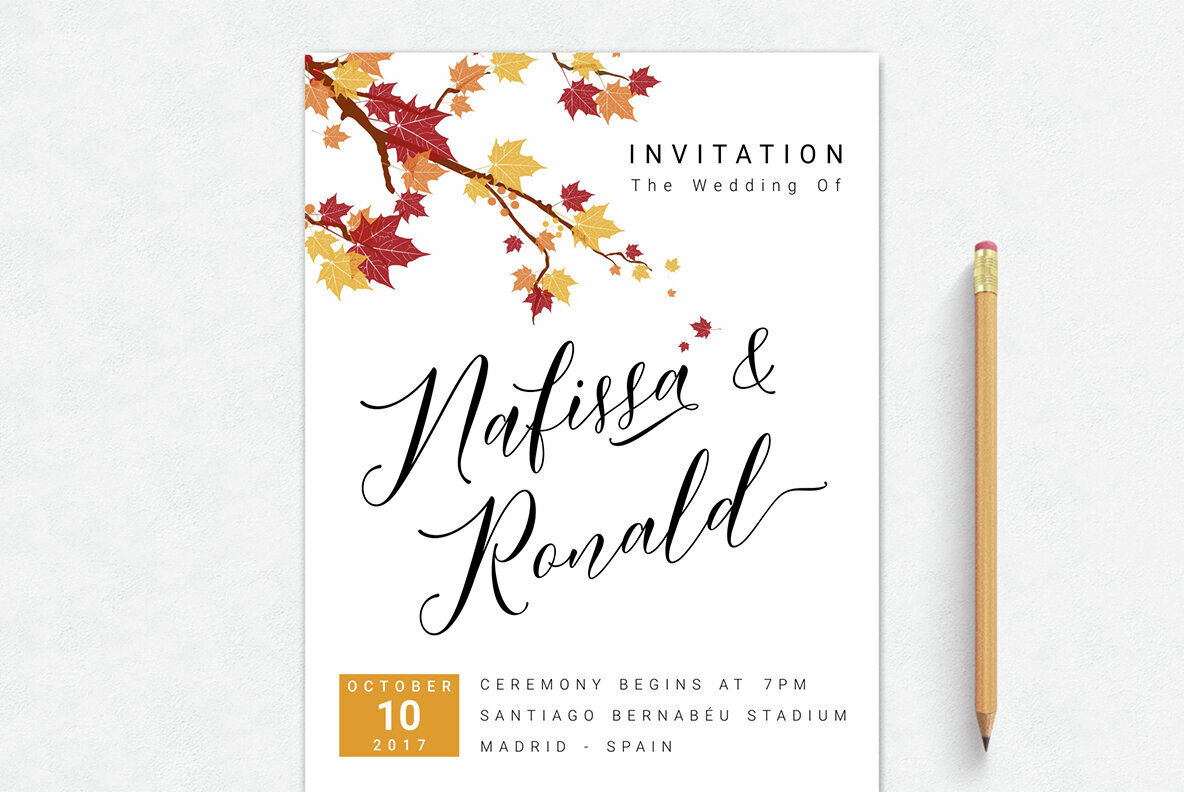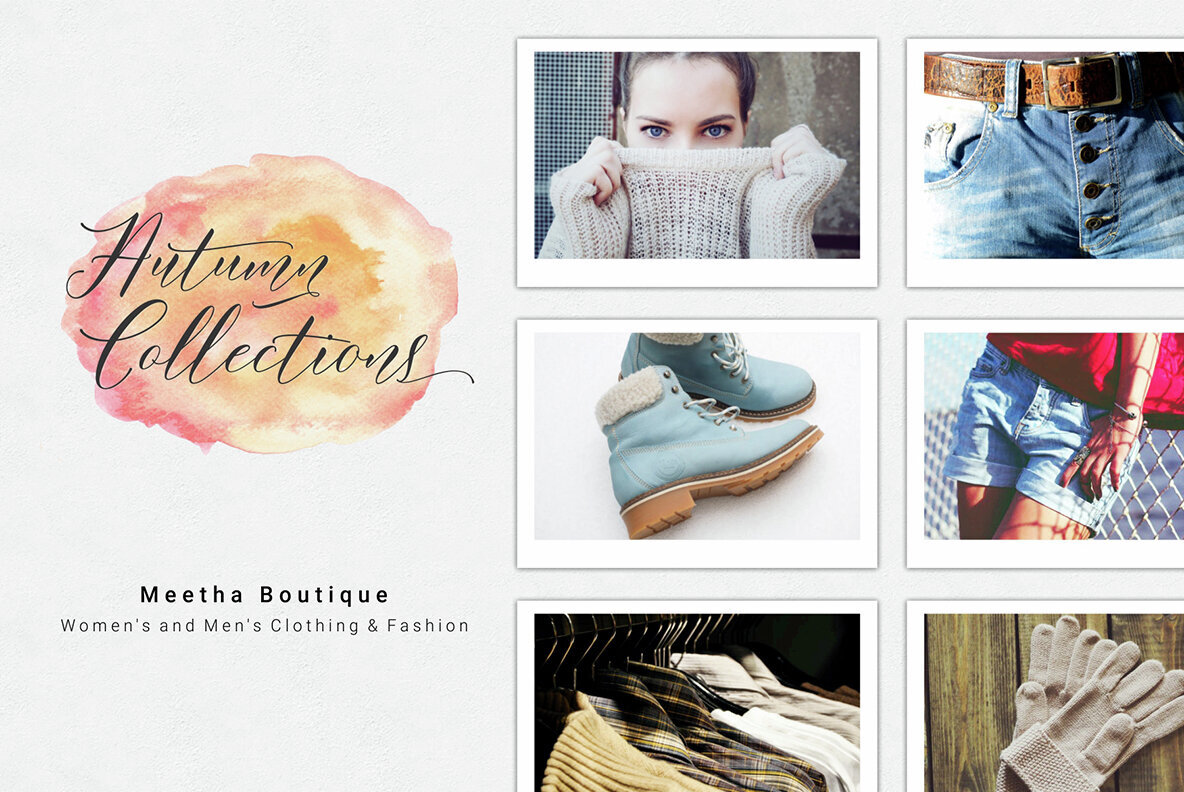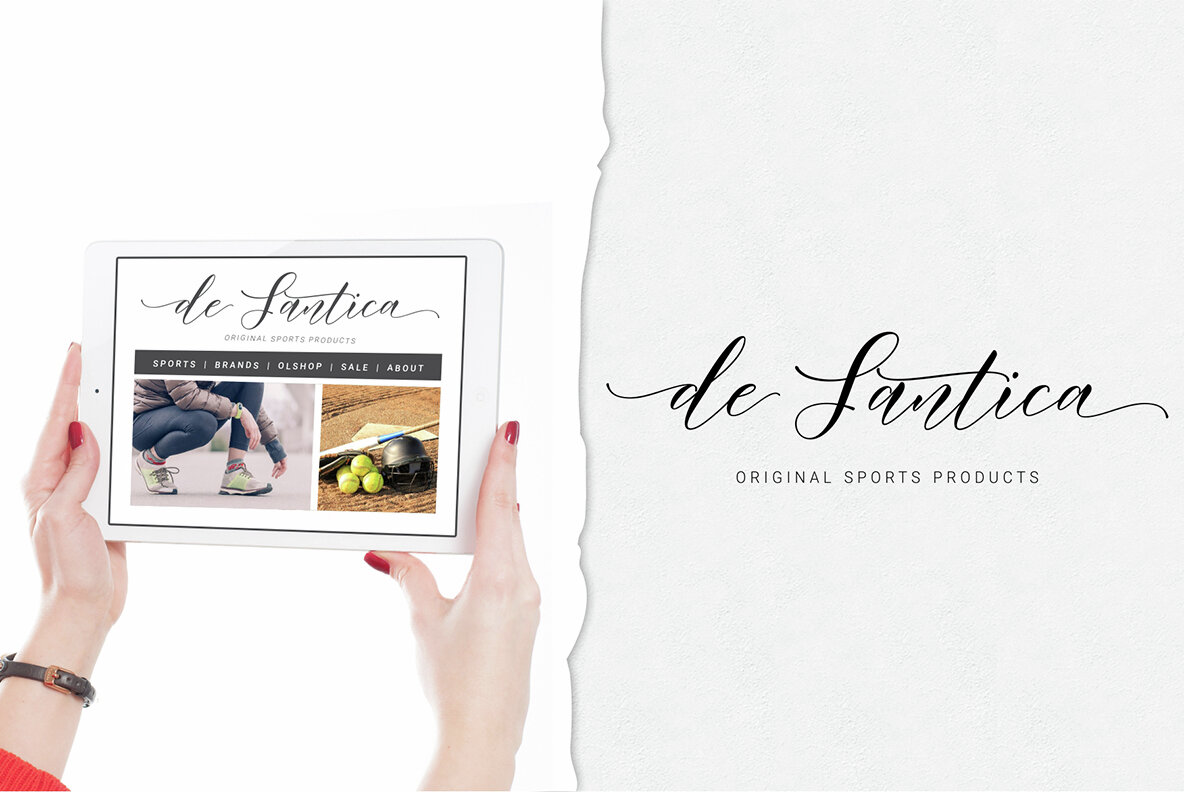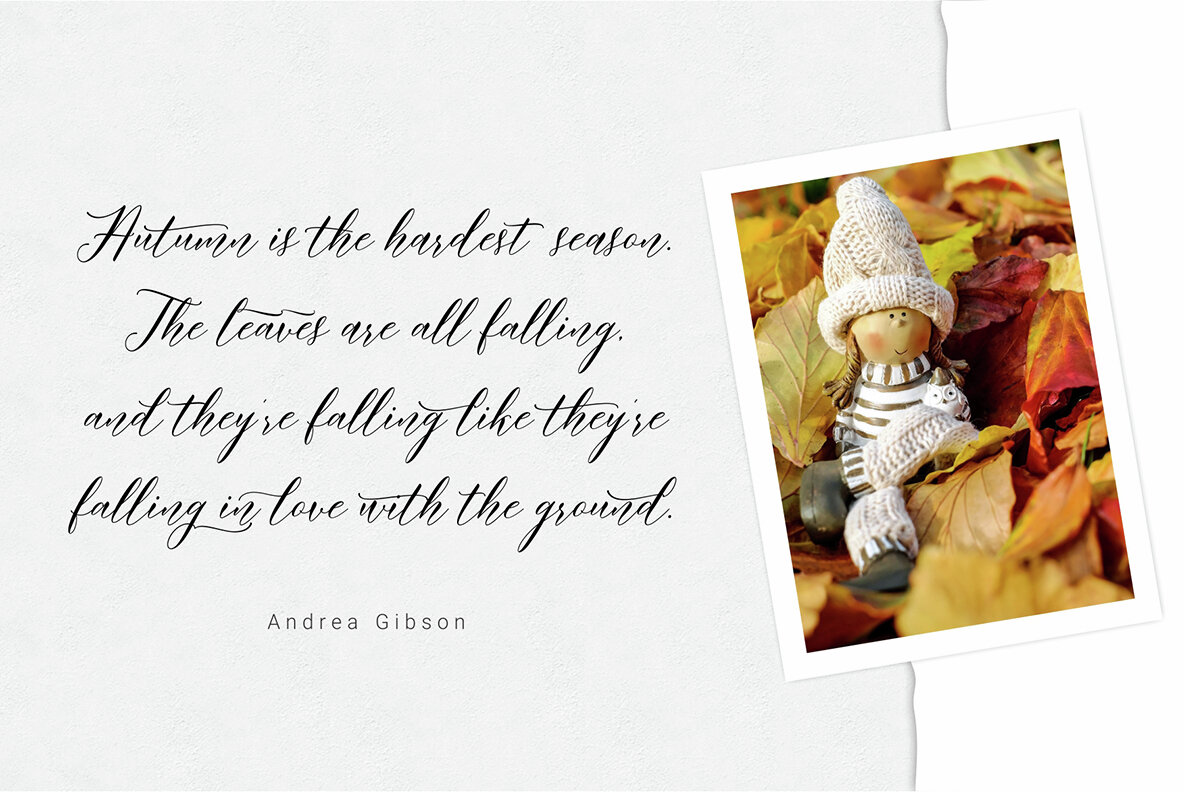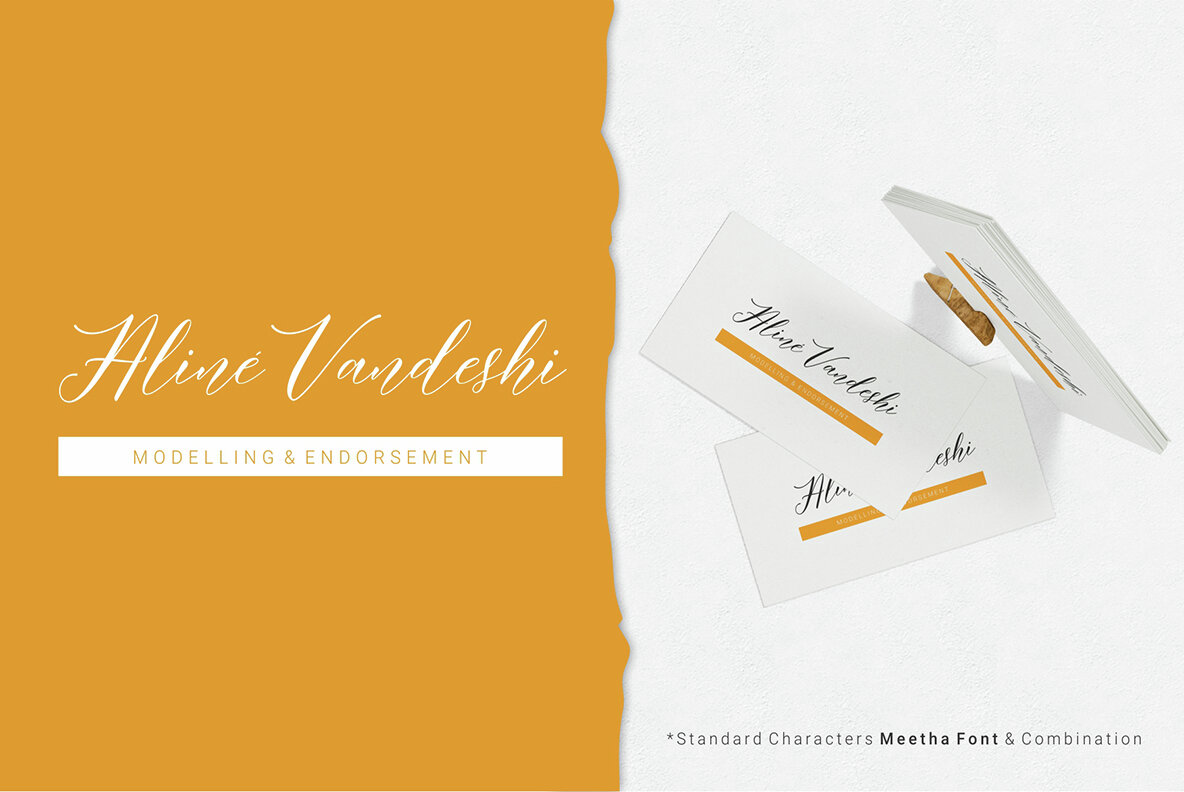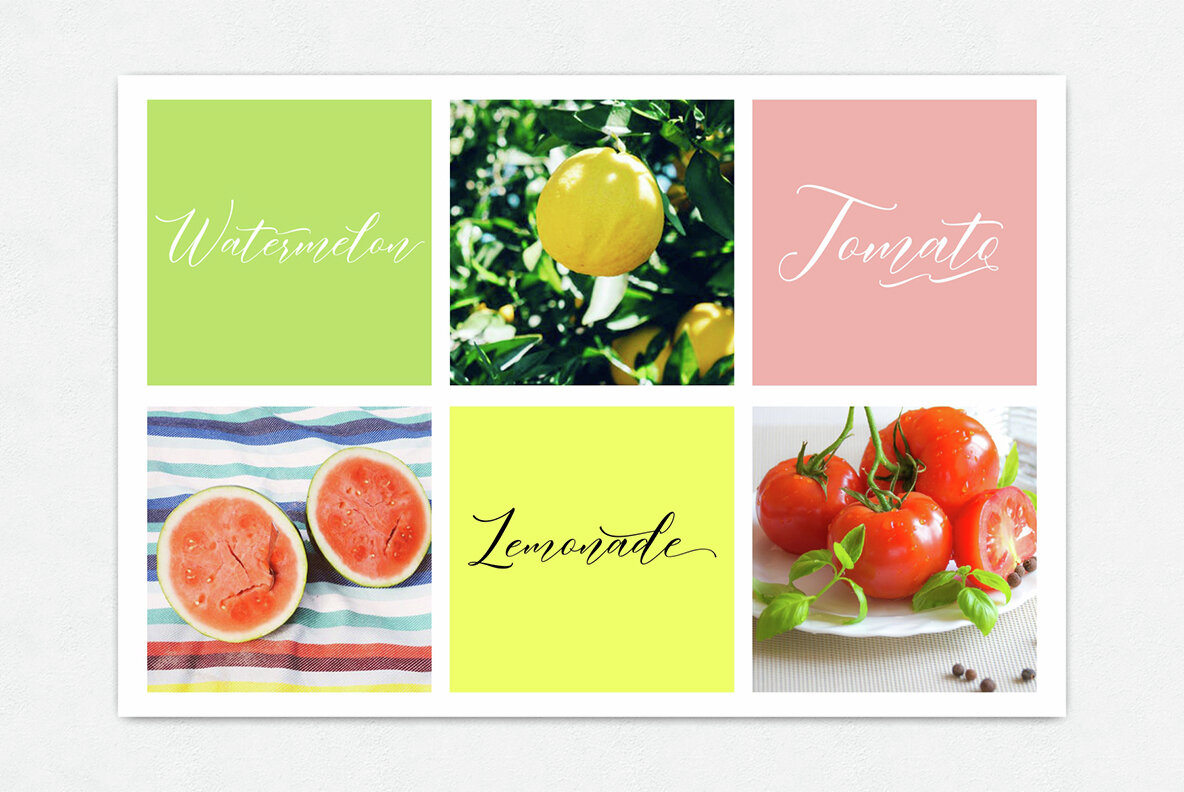
Meetha Font
Meetha Script
Hi Designer, Coming again to complete your script font collection..! Meetha Script is modern calligraphy script font. This is a beautiful script font with italic style. Made gently and danced to give the character of modern writing that is sweet, simple, stylish and firm. With a style like this, this font will be suitable in use for logo's, branding projects, homeware designs, product packaging, mugs, quotes, posters, shopping bags, logo's, t-shirts, book covers, name card, invitation cards, greeting cards, and all your other lovely projects.